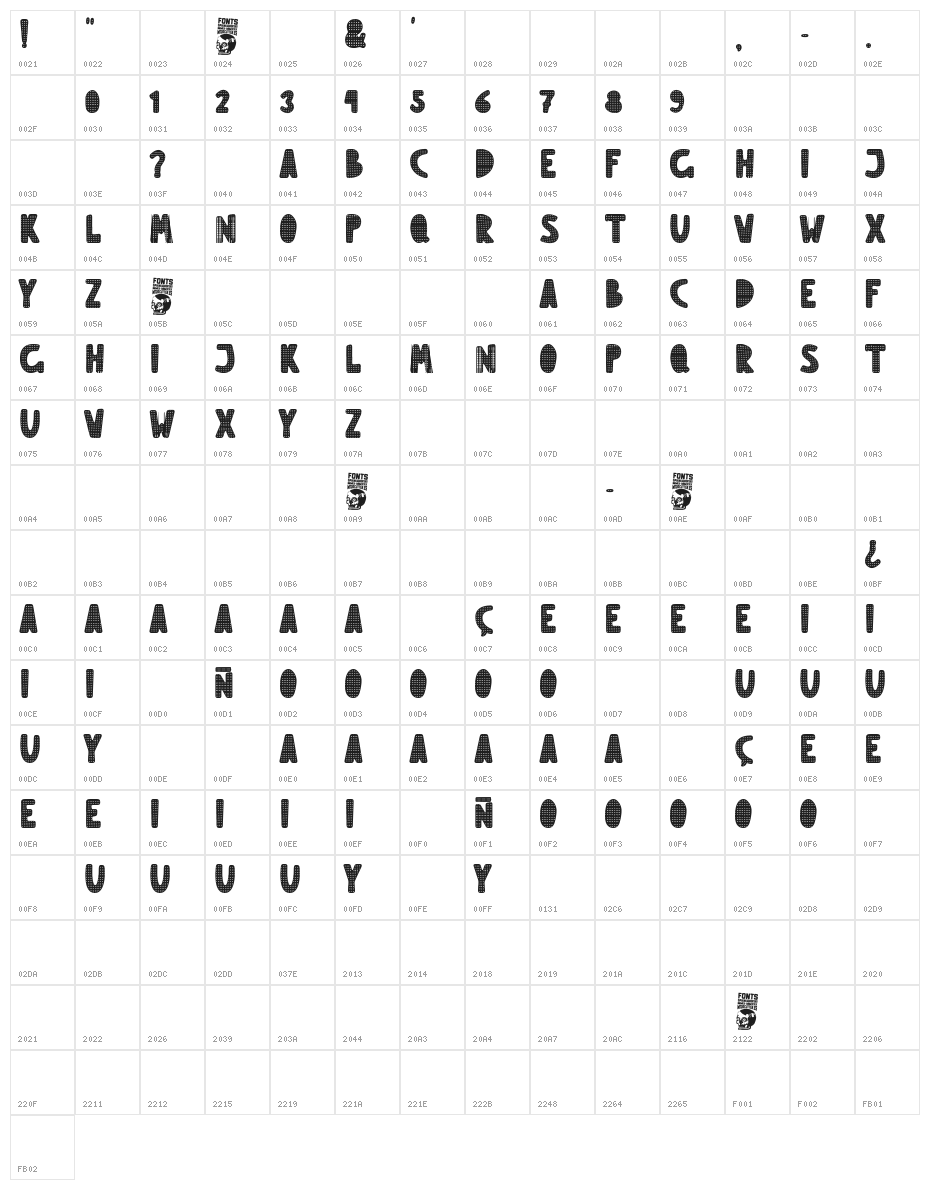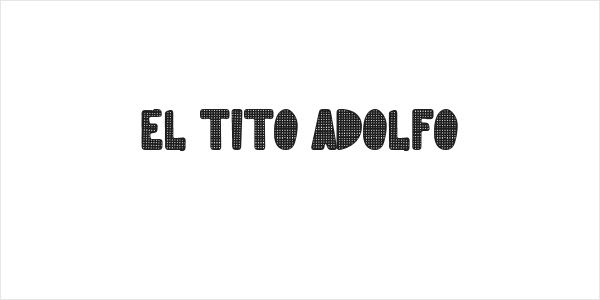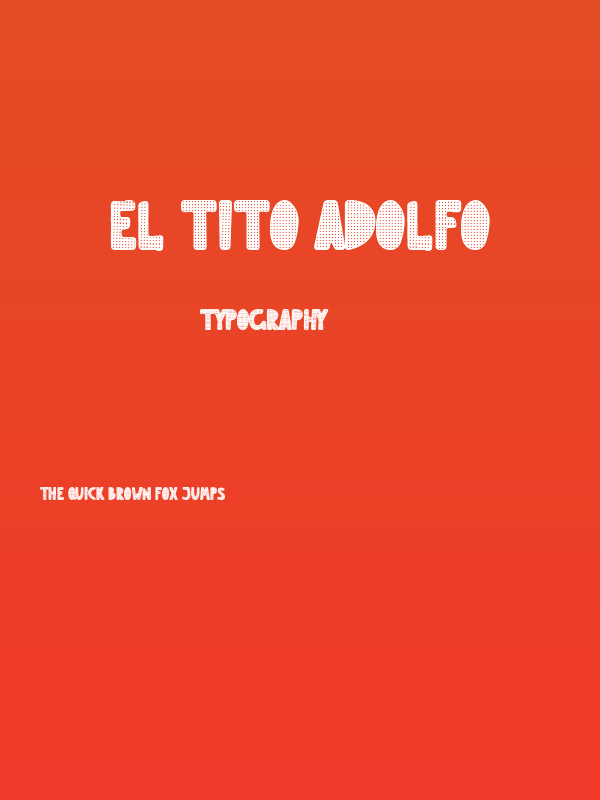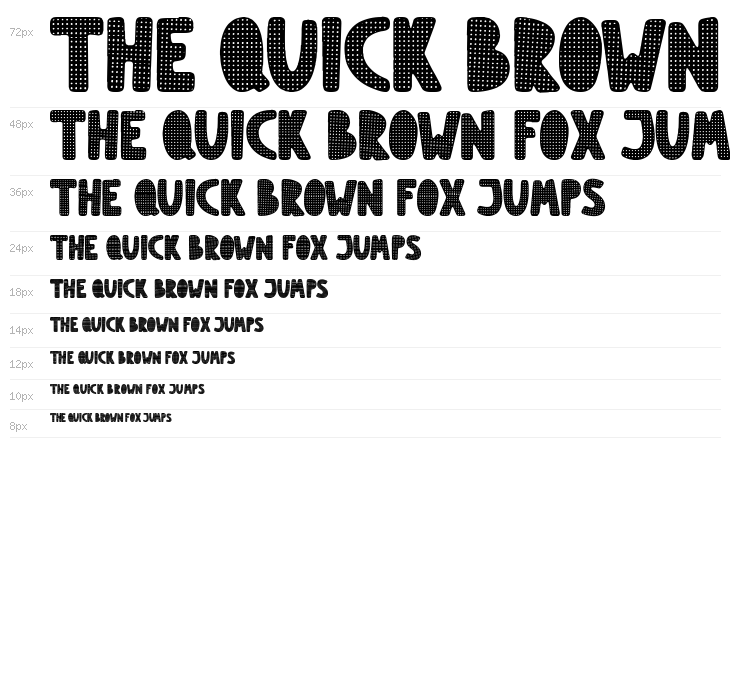
El Tito Adolfo Font
El Tito Adolfo Description
This font features a bold, playful design with a unique dotted pattern filling each character. The letters are rounded and slightly irregular, giving them a whimsical and dynamic appearance. The uppercase and lowercase letters maintain a consistent style, while the numbers and special characters follow suit with the same dotted texture. This font's distinctive look makes it stand out, perfect for projects that require a fun and eye-catching typeface.
| Proposed Projects | Ideal for children's books, playful branding, posters, and creative invitations. |